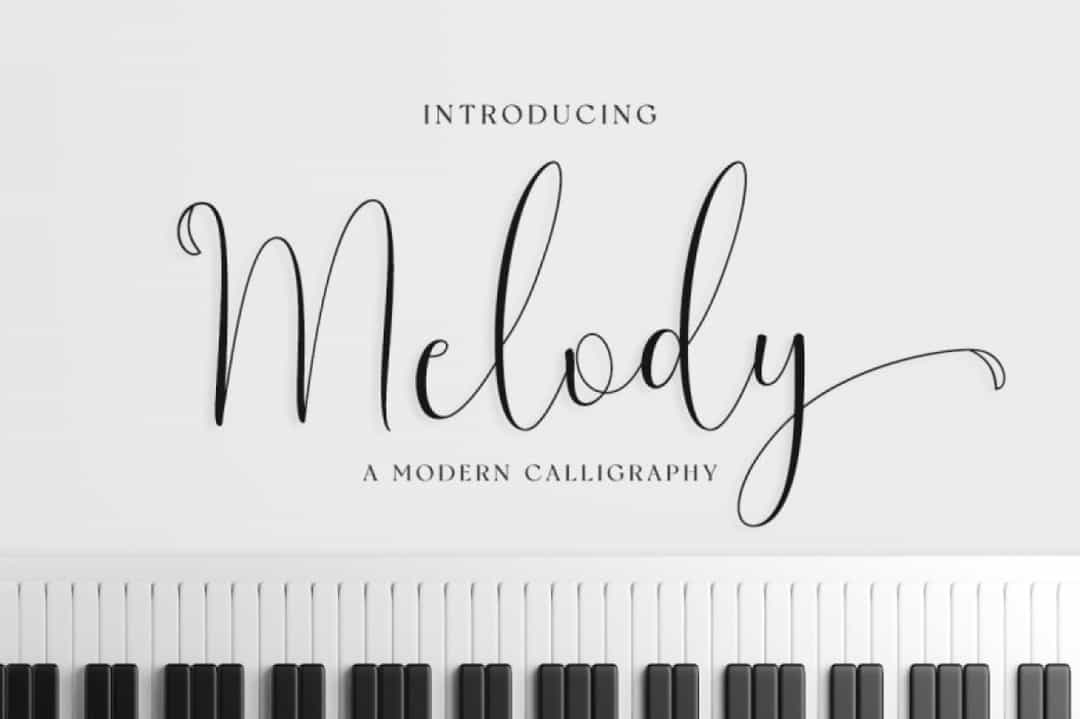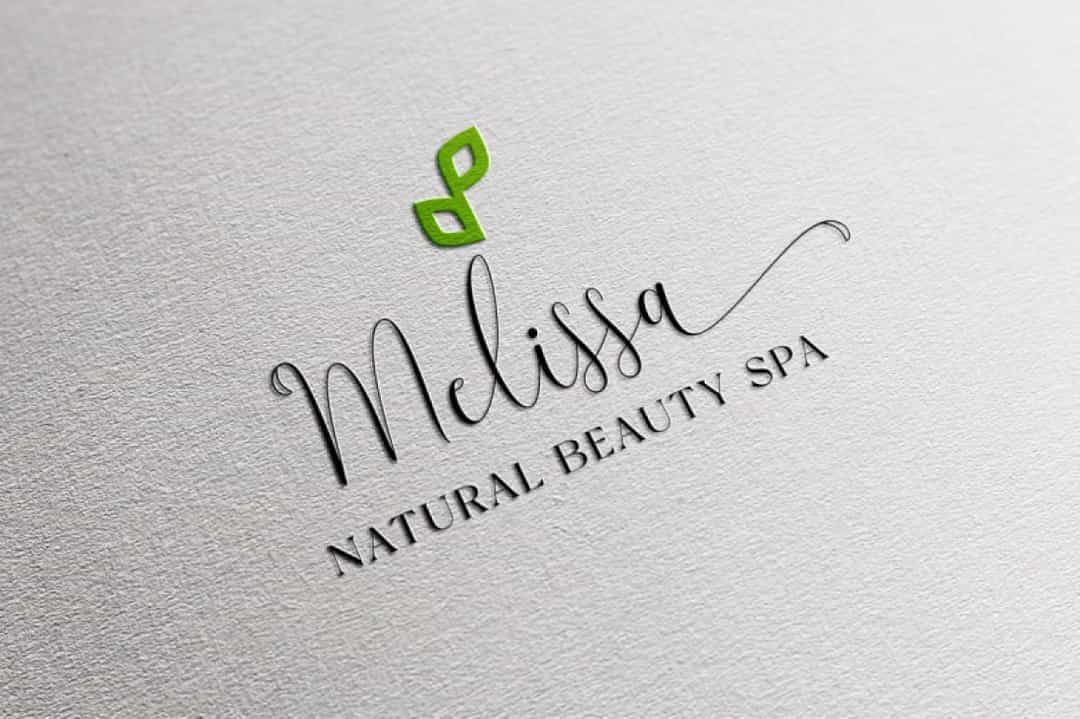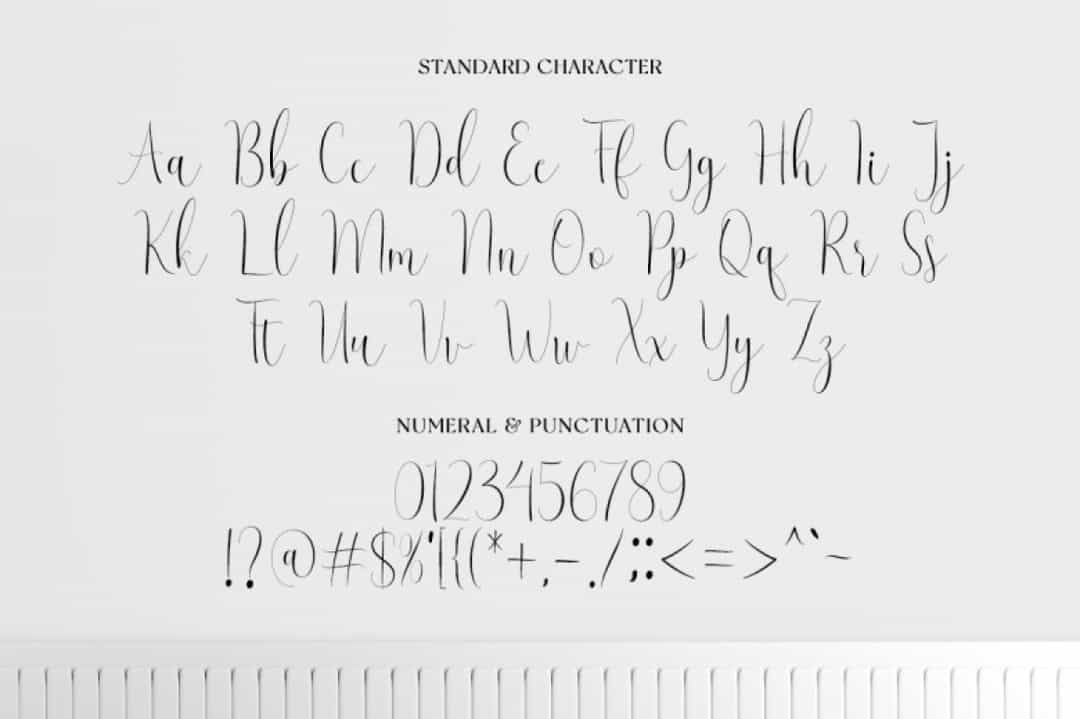
Melody Calligraphy Font is an elegant script type with an attractive look and feel, perfect for adding personal designs to artworks of any kind. With sophisticated, elegant, and contemporary characteristics this font provides beautiful typographics suitable for many items and applications.